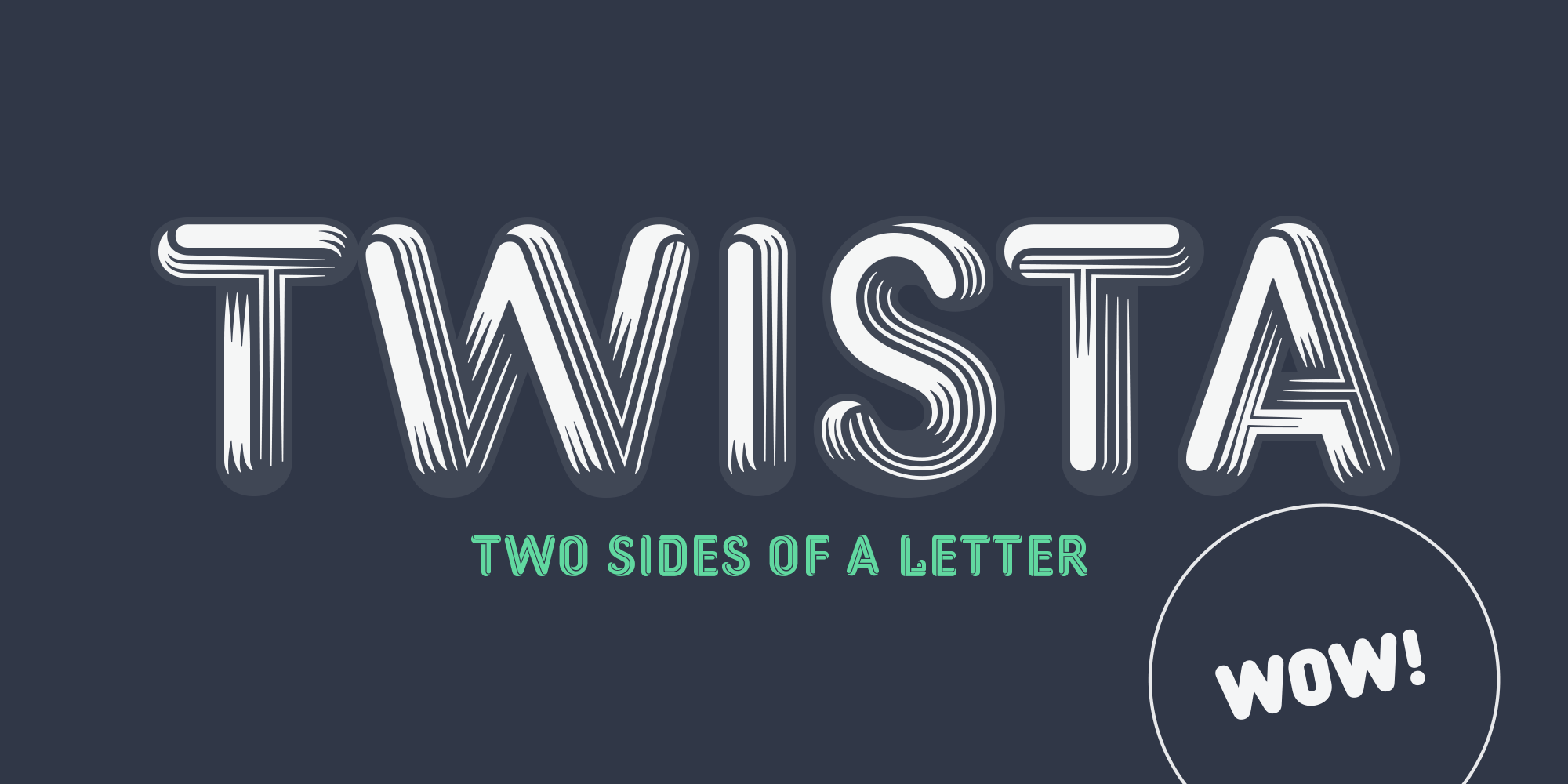
Twista Font excels in dynamic advertising campaigns, energetic youth branding, music festival graphics, extreme sports marketing, dance event promotions, street art projects, urban fashion labels, hip-hop album covers, action movie titles, and high-energy social media content where twisted, kinetic typography creates motion and excitement.
What makes Twista Font exciting is its innovative twisted letterform design that creates the illusion of movement and rotation within static typography. This font features spiraling character shapes, dynamic curves, and energetic distortions that capture the essence of motion, speed, and contemporary urban culture. The kinetic styling and bold personality make it ideal for applications requiring visual impact, youthful energy, and cutting-edge design aesthetics that stand out in crowded media environments.
Twista Font family includes Regular, Bold, and Extra Bold weights, each maintaining the font's characteristic twisted energy while offering different levels of visual intensity for dynamic design hierarchies. The family also features outline variations, shadow effects, and 3D styling options that enhance the font's dimensional appearance. Each variant preserves the font's kinetic character while providing flexibility for complex motion graphics and contemporary design applications.
The Twista Font Free Download provides designers with access to typography that embodies modern energy and urban creativity. This font's dynamic styling makes it perfect for entertainment branding, youth-oriented marketing, and contemporary design projects where movement and excitement are essential. Its versatility extends to digital animations, video game interfaces, and modern advertising campaigns requiring powerful visual presence and contemporary appeal.
Twista Font supports comprehensive character coverage including numbers, punctuation, and special symbols necessary for modern design applications. The font's carefully engineered metrics ensure proper spacing and alignment while maintaining the twisted characteristics that define its energetic personality. Its robust construction performs effectively from small social media graphics to large billboard applications where maximum impact is required.
The font's electrifying presence makes it particularly effective for entertainment industry branding, youth culture communications, and high-energy promotional materials where excitement and modernity are paramount. Whether designing concert posters, extreme sports campaigns, or urban lifestyle branding, Twista Font delivers cutting-edge typography that captures contemporary energy and creates memorable visual experiences that resonate with dynamic, youth-oriented audiences effectively.